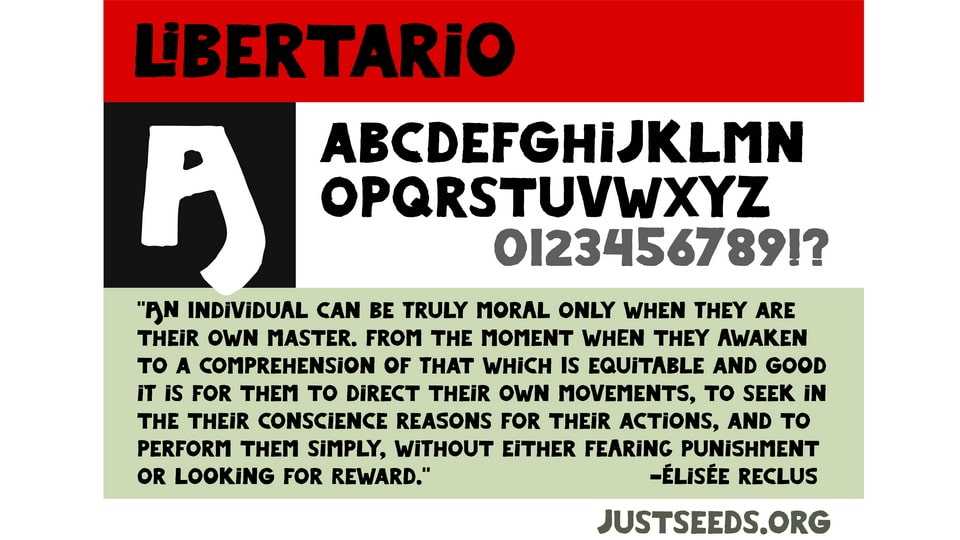
Download Libertario font, a bold and captivating handcrafted typeface adapted from a 1932 Italian pamphlet of writings. Every stroke is carefully crafted to preserve the authenticity and charm of the vintage manuscript while adding a contemporary flair.